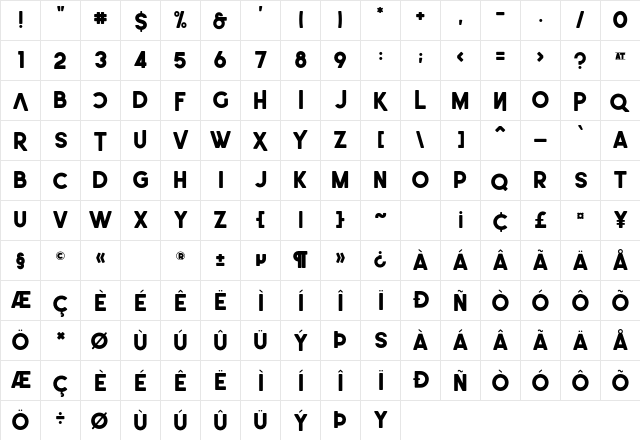
Leonardo-SemiRounded Demo
Design Context for Leonardo-SemiRounded Typeface
Leonardo-SemiRounded uses gentle rounded endings to create a warm, inviting typographic personality — less corporate than geometric sans, more refined than playful display fonts.
Well-suited to UI design, mobile interfaces, and any brand that wants approachability without sacrificing clarity.
Font Pairing: Pairs well with a rounded or humanist sans for body copy, maintaining the friendly tone without relying on Leonardo-SemiRounded to carry extended reading.
Pro Tip: Use Leonardo-SemiRounded for UI elements, app interfaces, and anywhere a friendly, approachable tone needs to be maintained without sacrificing clarity.